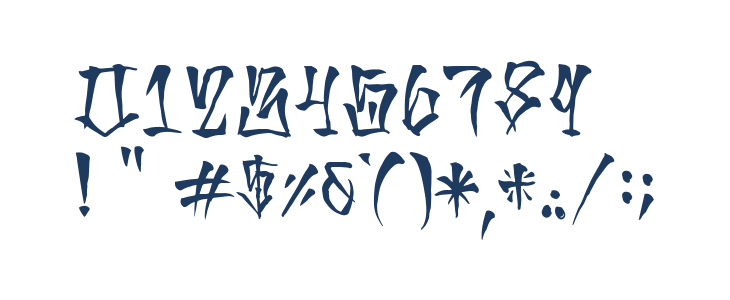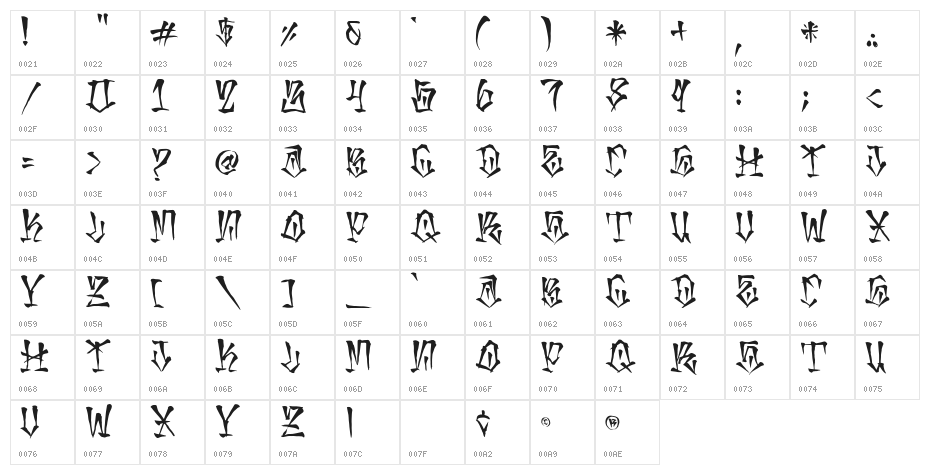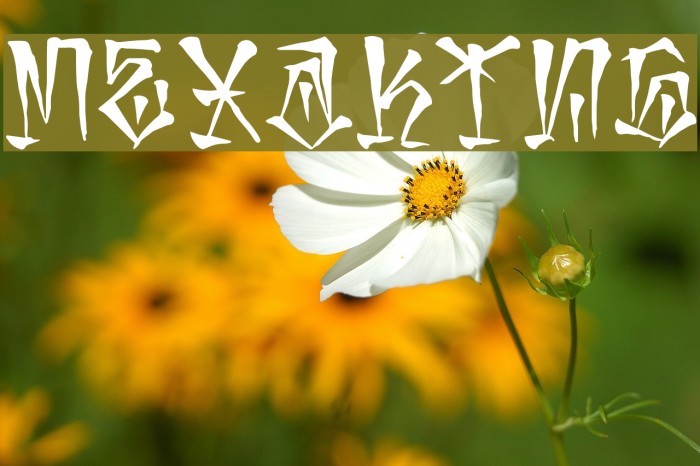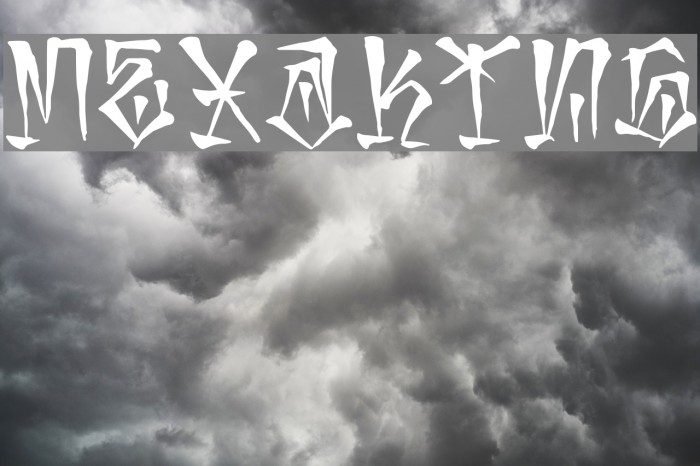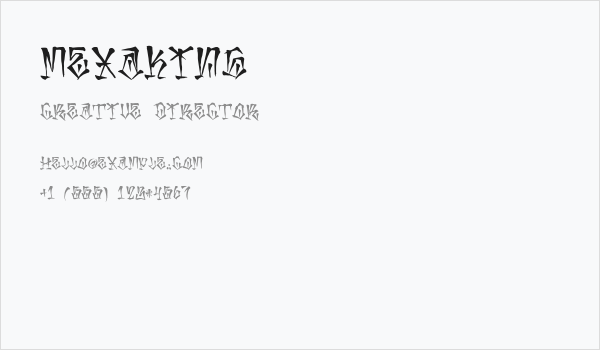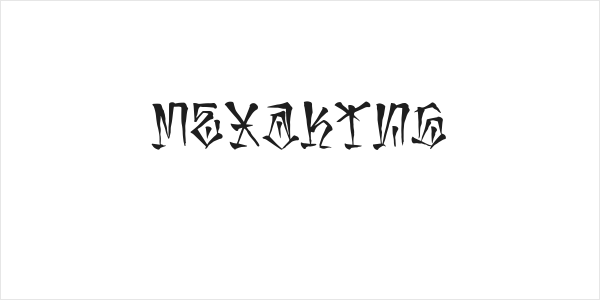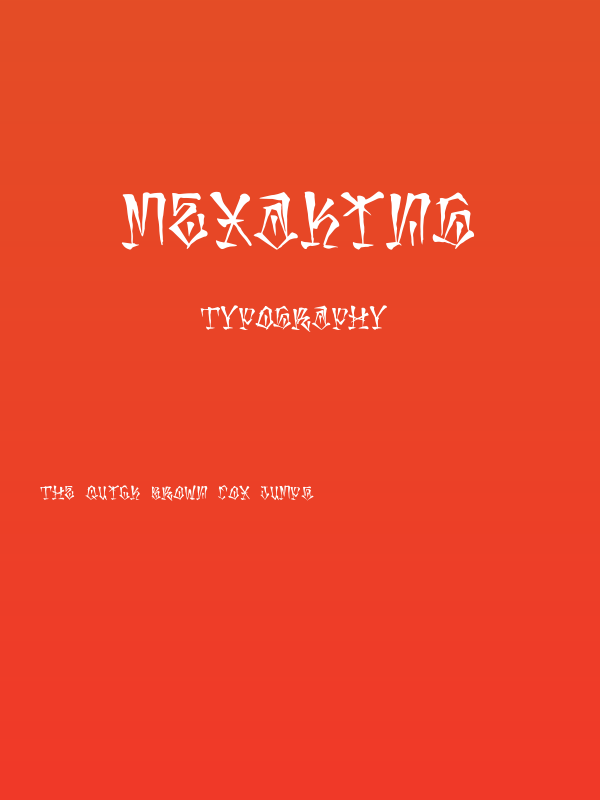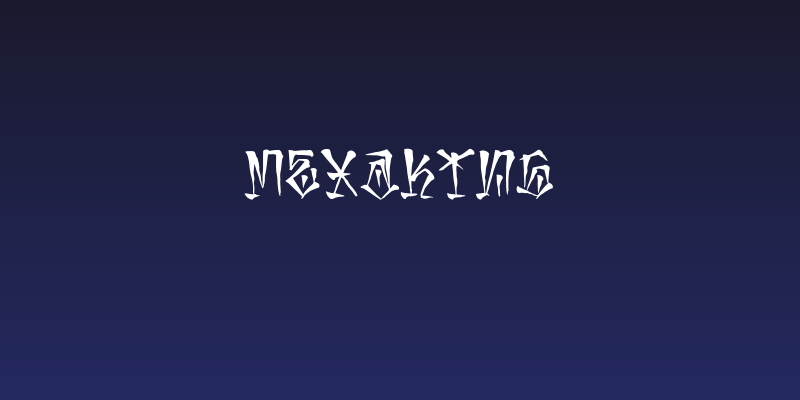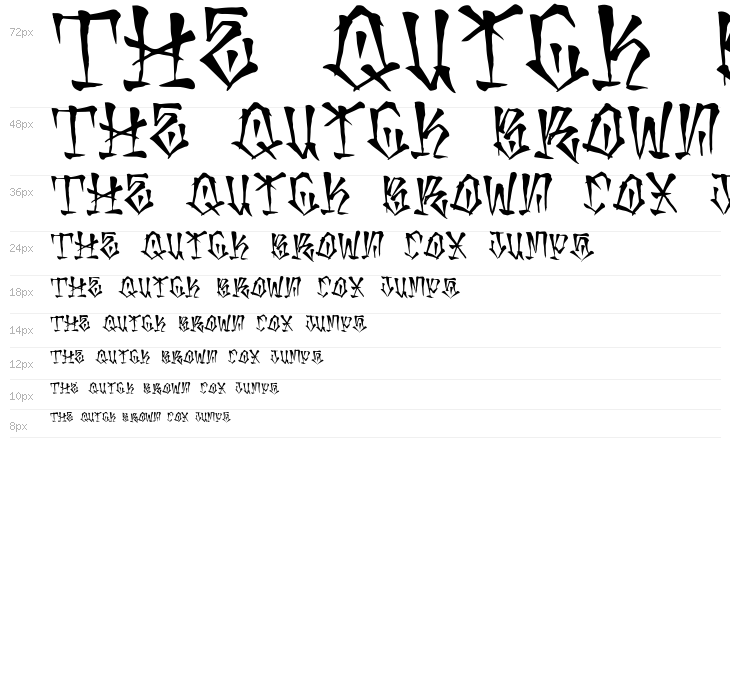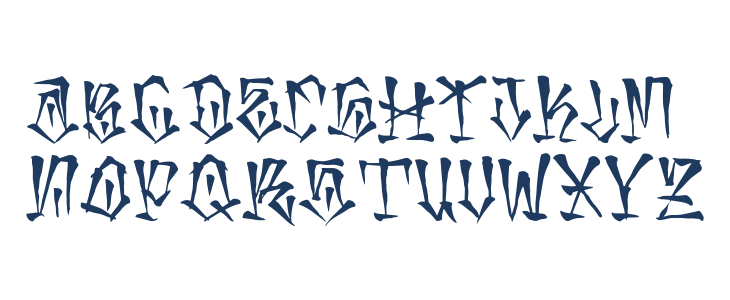
mexaking Font
mexaking Description
This font features a bold and striking design, characterized by sharp, angular lines and a gothic-inspired aesthetic. The letters are highly stylized, with exaggerated serifs and pointed edges that give it a dramatic and edgy appearance. The uppercase and lowercase letters maintain a consistent style, with a strong emphasis on vertical lines and sharp angles. The numbers and special characters follow the same design principles, ensuring a cohesive look across all glyphs. This font is ideal for projects that require a bold and impactful visual statement, such as posters, album covers, or branding for edgy or alternative products.
| Overall Style | Gothic, Edgy, Dramatic |
| Proposed Projects | Ideal for posters, album covers, edgy branding, and alternative product designs. |